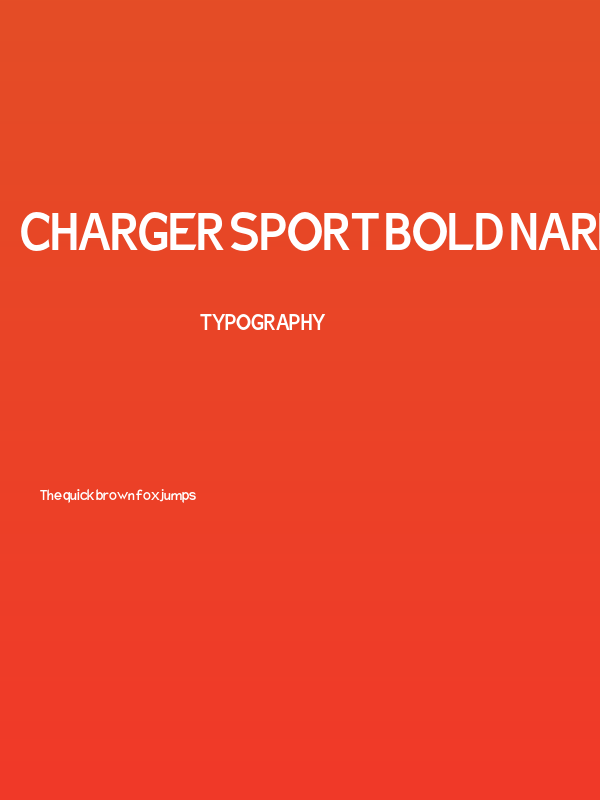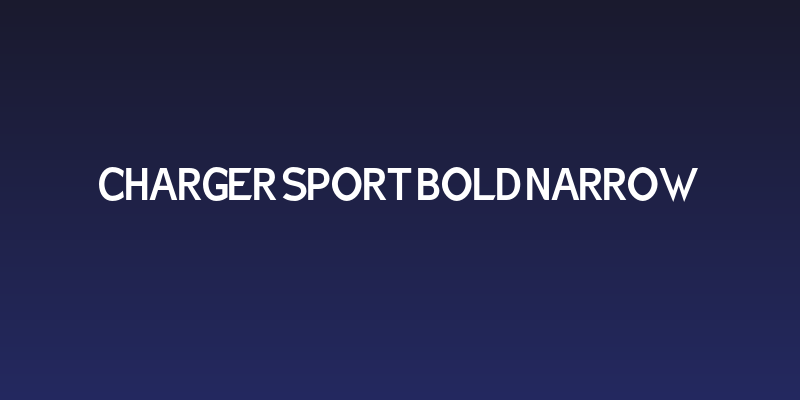
Charger Sport Bold Narrow Font
Charger Sport Bold Narrow Description
This font features a bold and narrow design, characterized by its strong and impactful appearance. The uppercase letters are tall and commanding, while the lowercase letters maintain a consistent width that complements the overall boldness. The numerals are clear and legible, making them suitable for various applications. Special characters are well-defined, adding versatility to the font's usage. The clean lines and modern aesthetic make it ideal for projects requiring a contemporary and assertive typeface.
| Proposed Projects | Ideal for sports branding, posters, headlines, and any project needing a strong, modern typeface. |